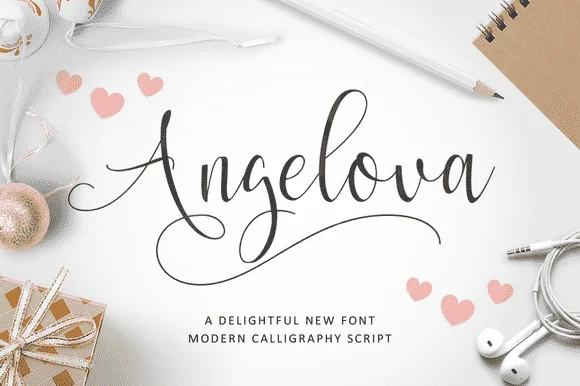
Angelova Script Font is perfect for angelic wedding invitations, heavenly spa branding, divine beauty product labels, celestial event materials, spiritual retreat signage, ethereal fashion campaigns, sacred ceremony programs, graceful greeting cards, heavenly hospitality branding, and inspirational quote graphics.
Angelova Script Font is exciting because it captures the pure essence of angelic grace and divine elegance, creating a script typeface that embodies heavenly beauty, spiritual serenity, and the transcendent power of celestial inspiration. This font brings ethereal sophistication and divine charm to any project, making it ideal for brands that want to convey purity, spirituality, and the uplifting beauty of angelic presence. Its graceful character and heavenly appeal create an atmosphere of divine elegance that resonates with audiences seeking spiritual connection and transcendent experiences.
Angelova Script Font family includes regular, light, and medium weights, plus celestial flourishes, angelic ornaments, and divine decorative elements, providing designers with comprehensive tools for creating heavenly typography and spiritually uplifting brand experiences.
This divine script typeface combines angelic aesthetics with contemporary design functionality, making Angelova Script Font Free Download a perfect choice for projects celebrating spiritual beauty and heavenly grace. The font's gracefully crafted letterforms feature ethereal proportions and celestial styling that reflect the gentle power of angelic presence and divine inspiration.
Whether you're designing spiritual retreat materials, divine beauty campaigns, or heavenly wedding stationery, Angelova Script Font delivers unmatched ethereal authenticity and angelic appeal. The font performs beautifully across both intimate spiritual applications and larger ceremonial environments where divine grace and celestial beauty create transformative experiences.
Spiritual professionals appreciate Angelova Script Font for its ability to instantly communicate divine grace and spiritual elegance while creating emotional connections with audiences seeking heavenly experiences and angelic inspiration. The font's celestial character makes it particularly effective for spiritual centers, divine wellness brands, and angelic-themed businesses.
Each character reflects the graceful movement of angelic wings, featuring flowing curves and heavenly proportions that create typography as beautiful and uplifting as angelic choirs and divine celestial light.